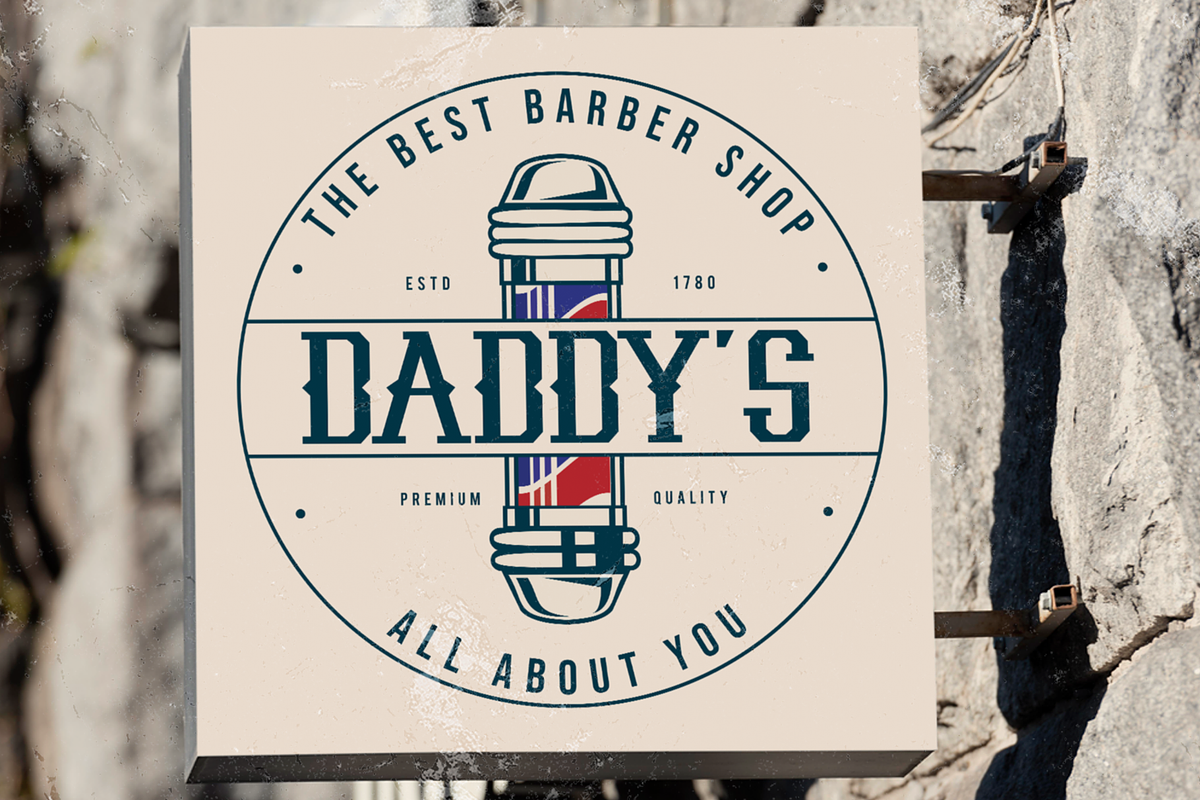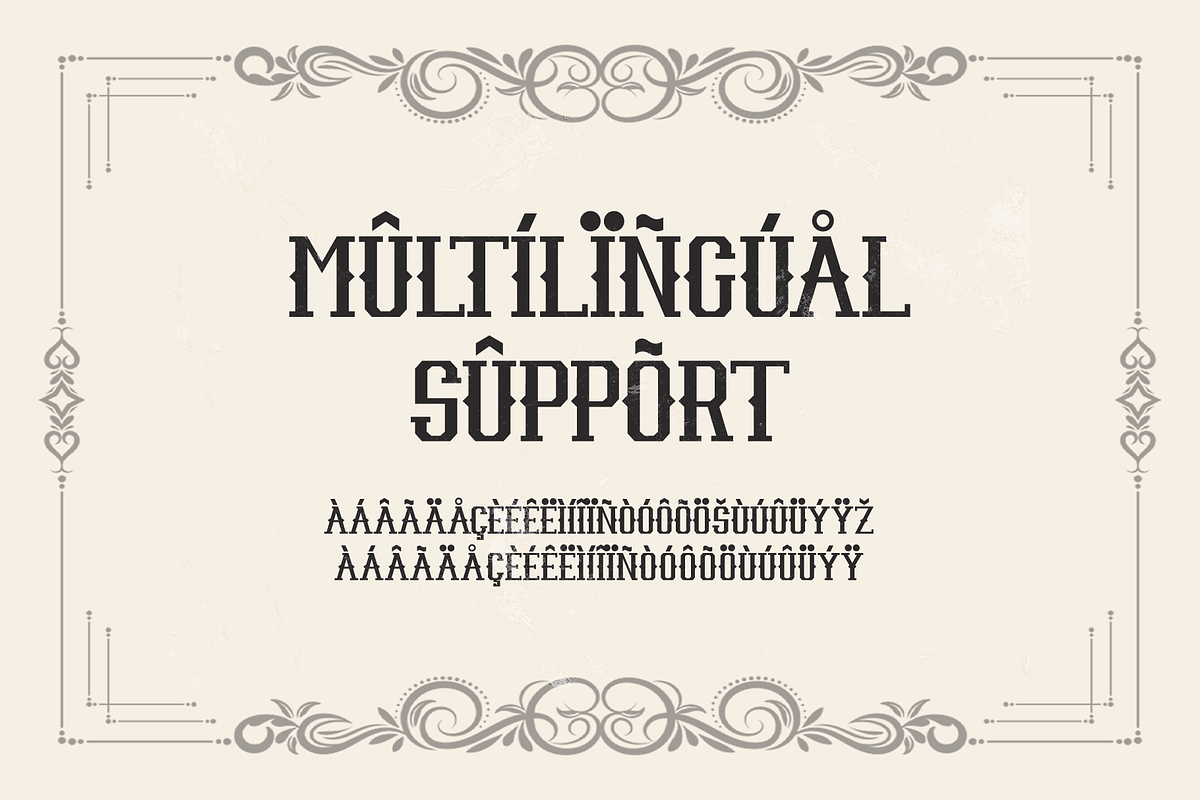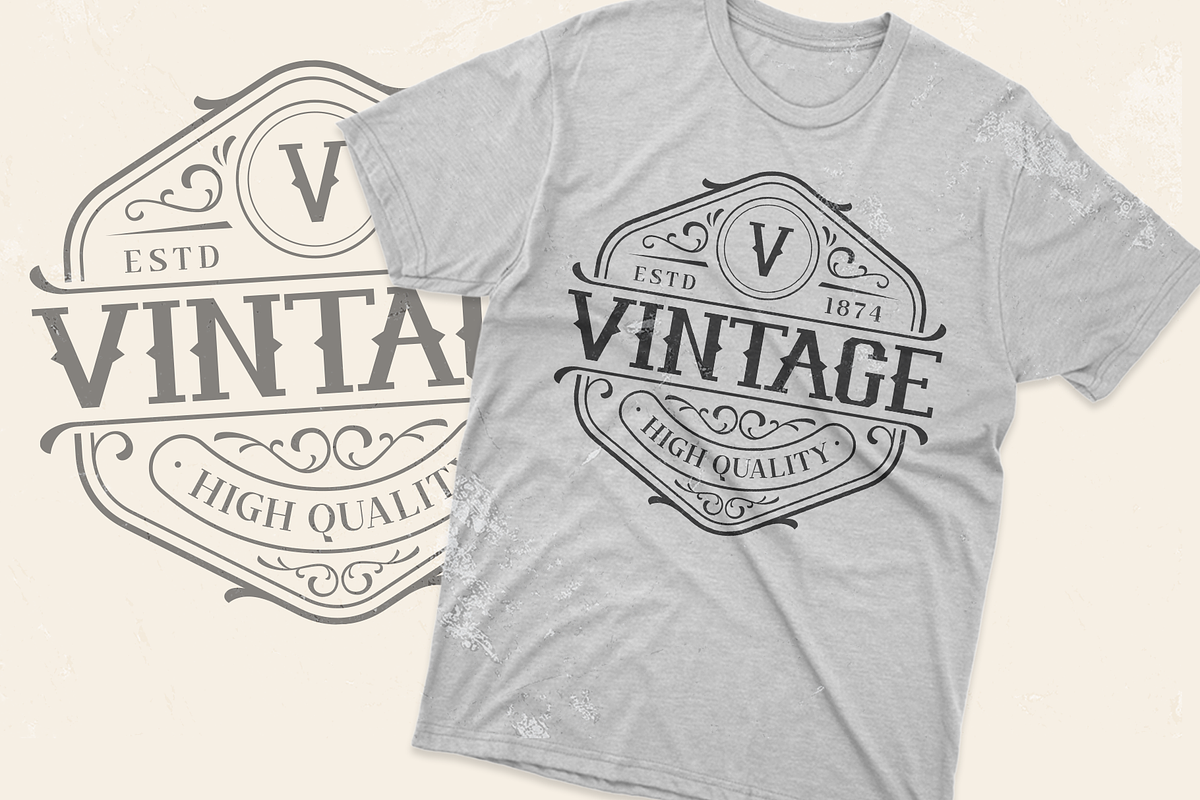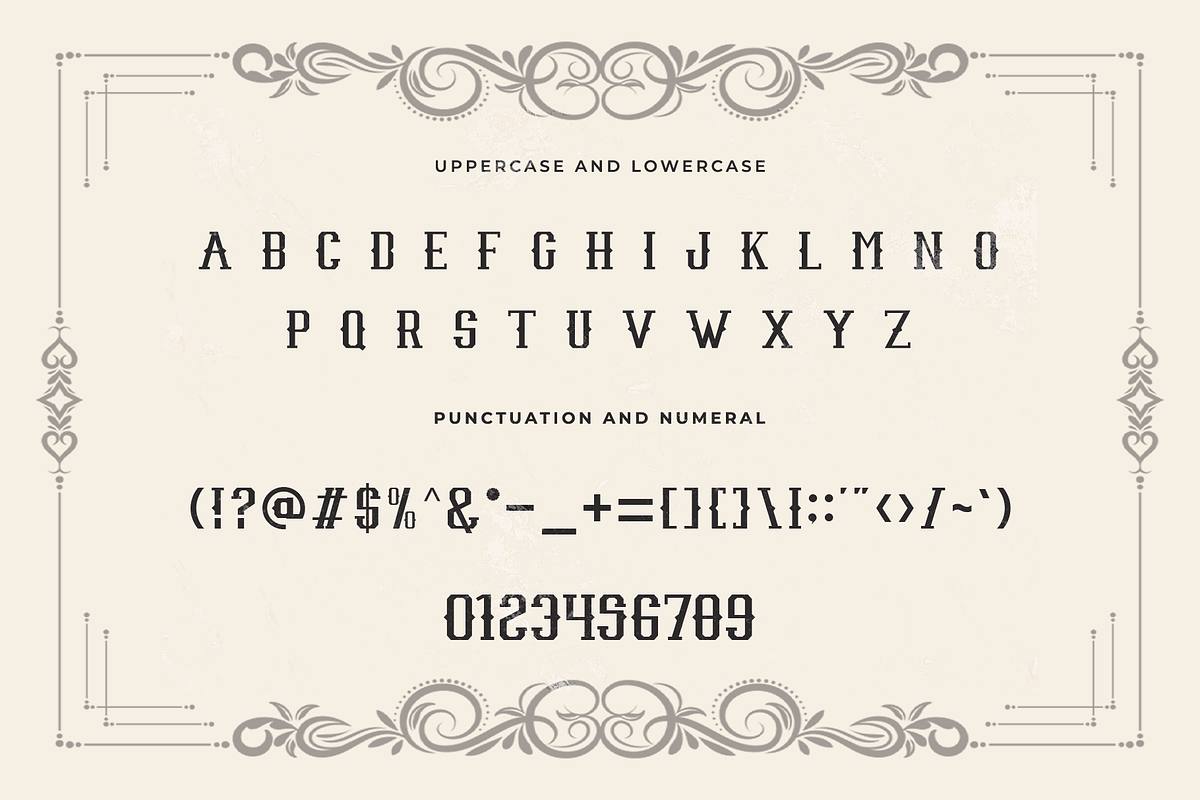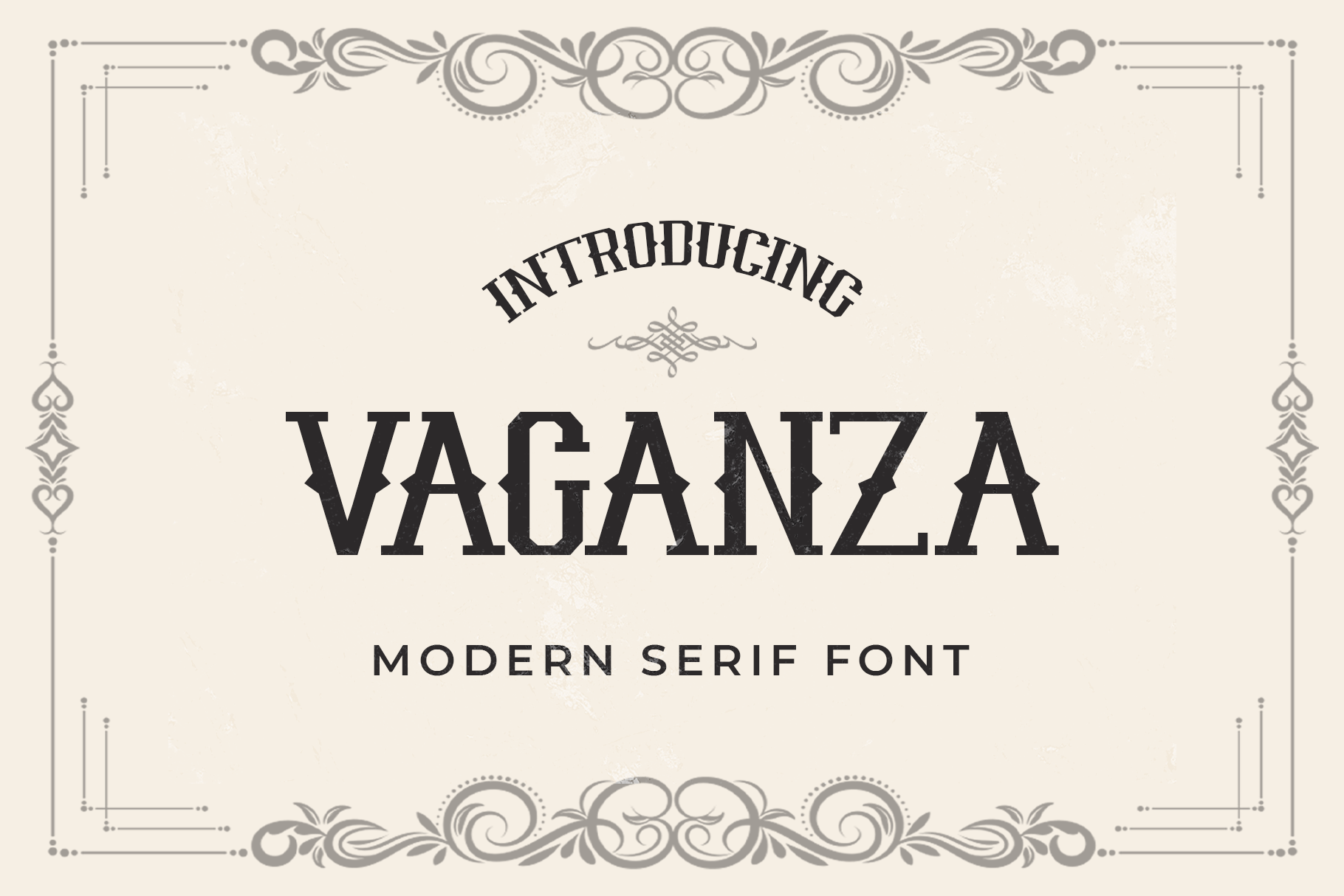
Vaganza - A Modern Serif Font
Vaganza is a sophisticated and versatile modern serif font designed to bring elegance and flair to your design projects. With its sleek lines and refined letterforms, Vaganza is perfect for luxury branding, editorial layouts, high-end packaging, and stylish invitations. This font captures the essence of contemporary sophistication, ensuring your work stands out with a polished and stylish appearance.
Crafted with precision, Vaganza features sharp and well-balanced serifs that offer excellent readability and visual elegance. Its modern serif design makes it ideal for both display and text purposes, providing a chic and professional presence. The font’s versatility allows it to adapt seamlessly to various design contexts, from digital platforms to printed materials, making it a valuable asset for any designer aiming to create elegant and impactful visuals.
Elevate your design projects with Vaganza, a font that embodies the fusion of modern style and classic elegance. Its unique style and adaptability make it an essential addition to any designer’s toolkit for crafting sophisticated and captivating designs. Enhance your work with Vaganza and experience the refined charm of modern serif typography.